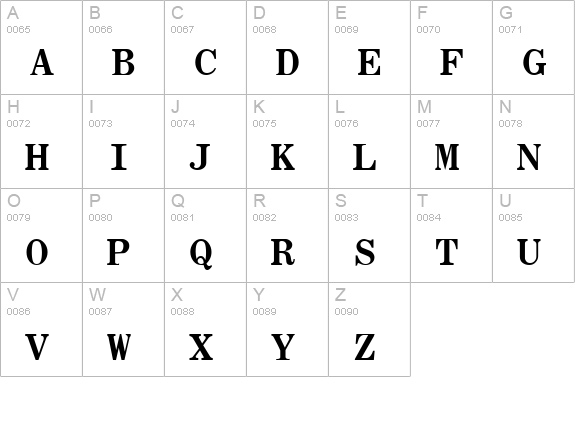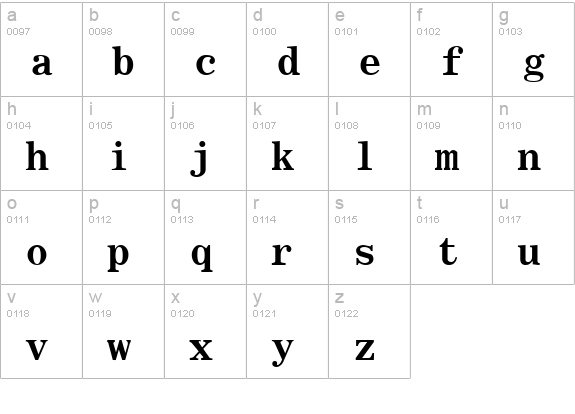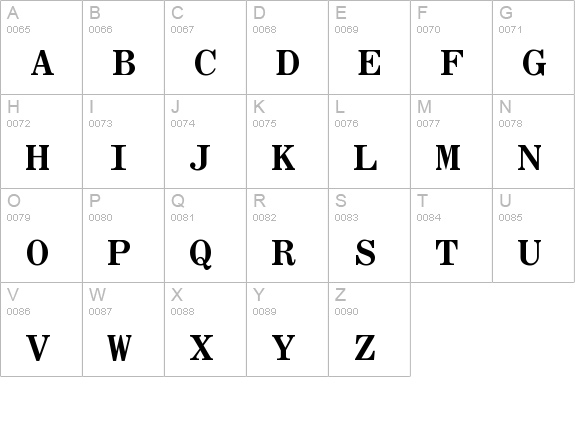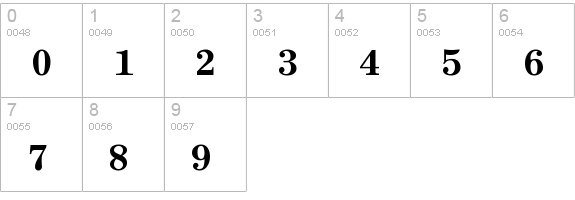
Roman Fixed-width Bold is a strong, high-contrast variant in the Roman typeface family \xE2\x80\x94 well suited to headlines, attention-grabbing titles, and strong calls-to-action.
The Roman Fixed-width Bold font is a classic and versatile typeface that exudes elegance and sophistication. Its bold and sturdy design makes it perfect for headlines, titles, and other attention-grabbing elements in your designs. With its fixed-width style, this font ensures consistent spacing between characters, providing a clean and professional look. What sets the Roman Fixed-width Bold font apart is not only its timeless appeal but also its versatility. Whether you're working on a print project or a digital design, this font will make your text stand out with its bold and impactful presence. Best of all, the Roman Fixed-width Bold font is available for free download at FontsMarket.com. So why wait? Add this font to your collection today and elevate your designs to the next level.